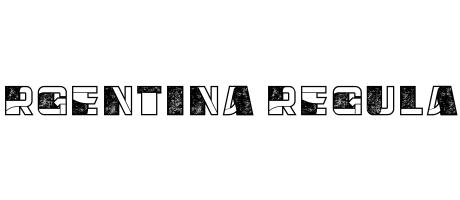
Argentina
Argentina Regular boasts a bold, geometric sans-serif design. Each letter is a stark, uppercase block, but a textured, grunge-like fill adds an unexpected rawness. The contrast between the clean lines and the gritty texture creates a striking, almost rebellious feel. It's simultaneously modern and vintage, strong and slightly chaotic.